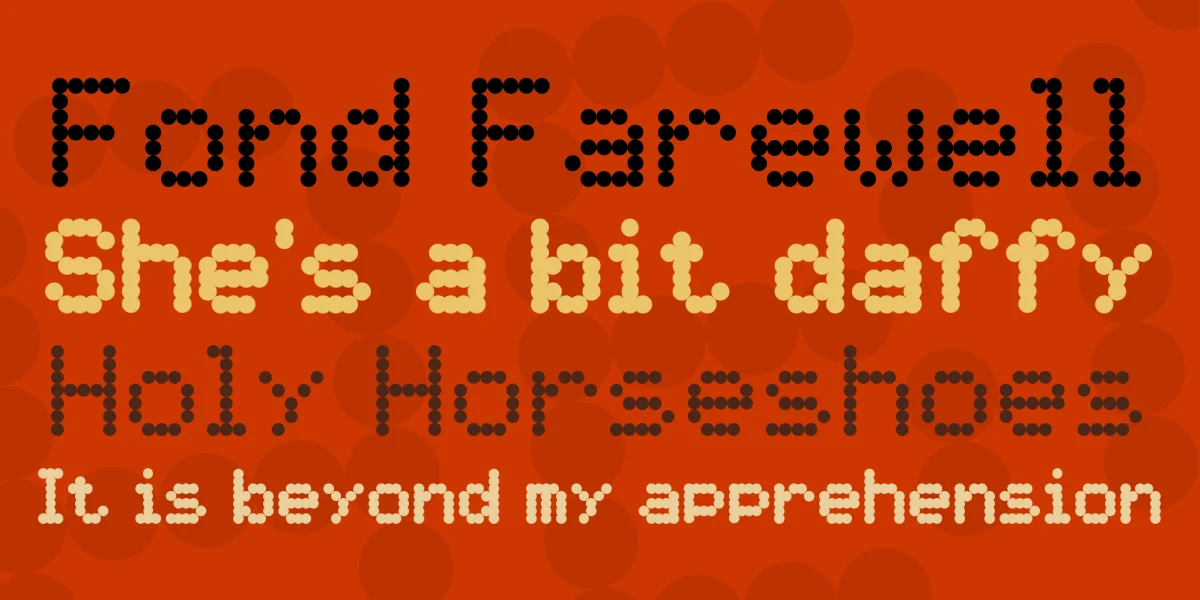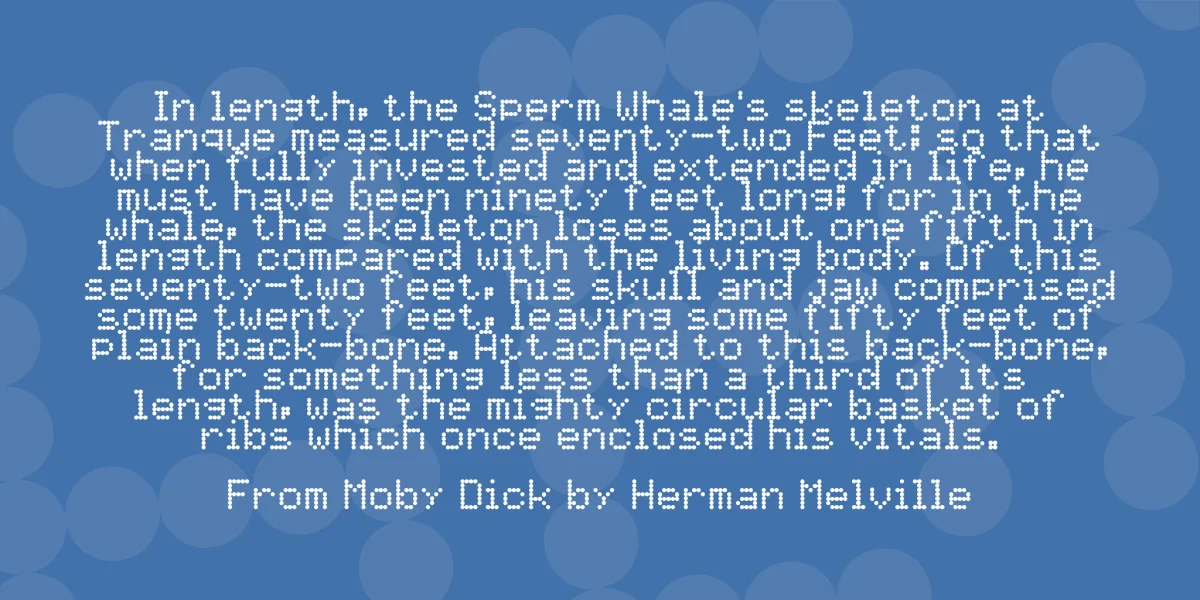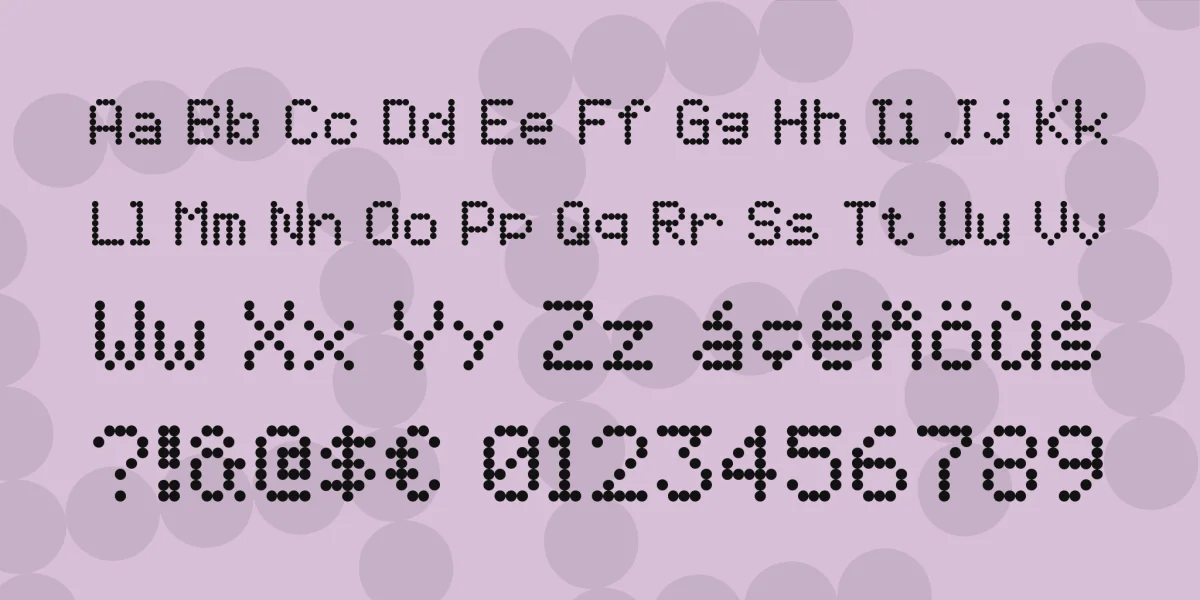
Many have asked me, because that was my first real computer fonts and many times I've answered that this is my font Schwaben Alt. If you mean a font with a computer font that is used on a PC, then this is correct. But if you think any digital computer font under Font, then that's not entirely true. So my first real computer writing was actually only one file from many hexadecimal digits that represent the pixels of a matrix font. And also because this font was not stored on a hard disk or a floppy disk, but in an EPROM, a programmable memory devices as the sitting font ROM in an electronic measuring device. I was employed at the University of Applied Sciences in Hamburg and we had purchased for us the lab a digital recorder Fast Company GOULD instrument. And then we had the problem that this had only the English ASCII character set, and the German umlauts not allowed here because pose. I then sat down with the German representative of this company in any way and get a guide on how we could even create our own font ROM. And just as my first digital font is created. A font like seven point series is, in which a single letter up to five columns wide, so 5 x 7 pixels. Here I have now modeled such a font, with a far more developed character set but without conscious company consisting of a maximum of 5 times and only 7 points.